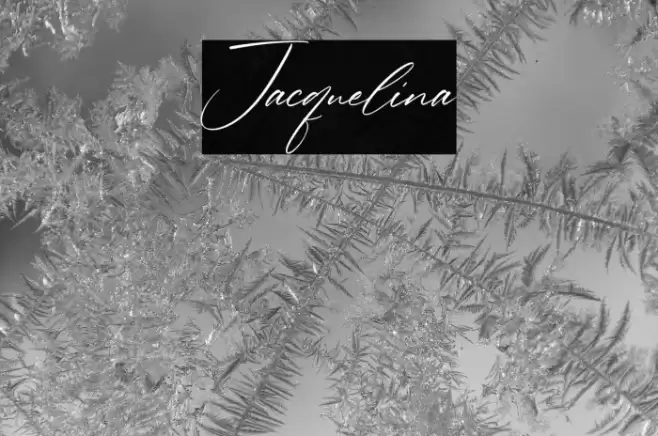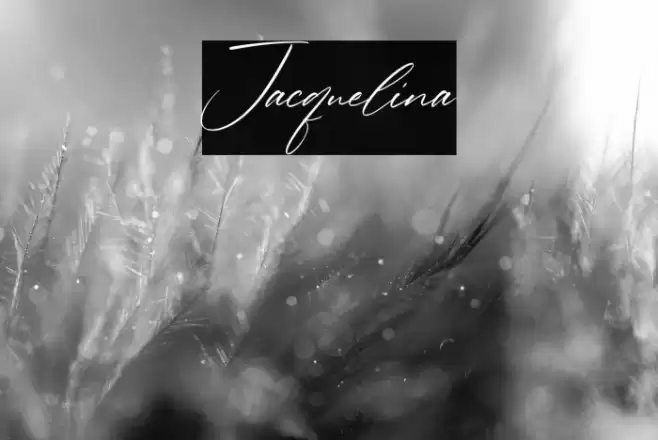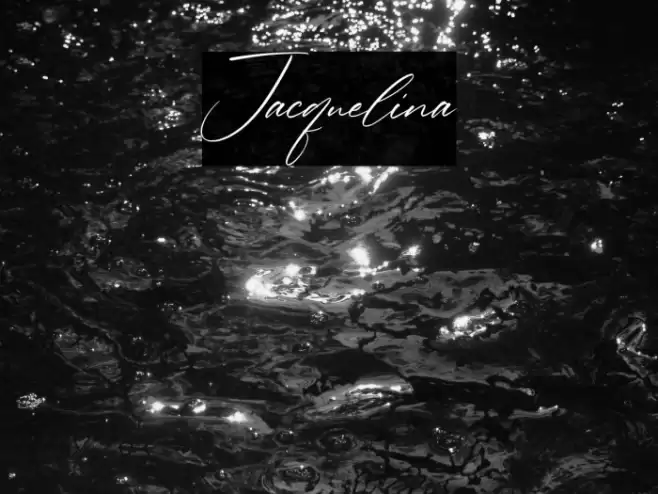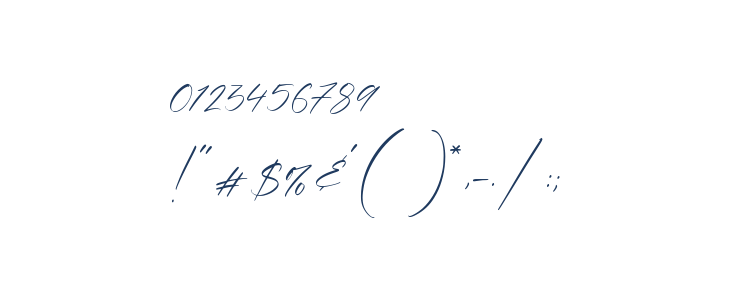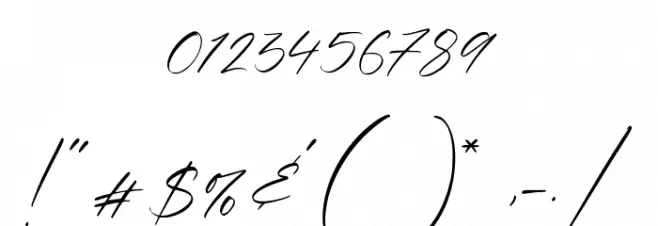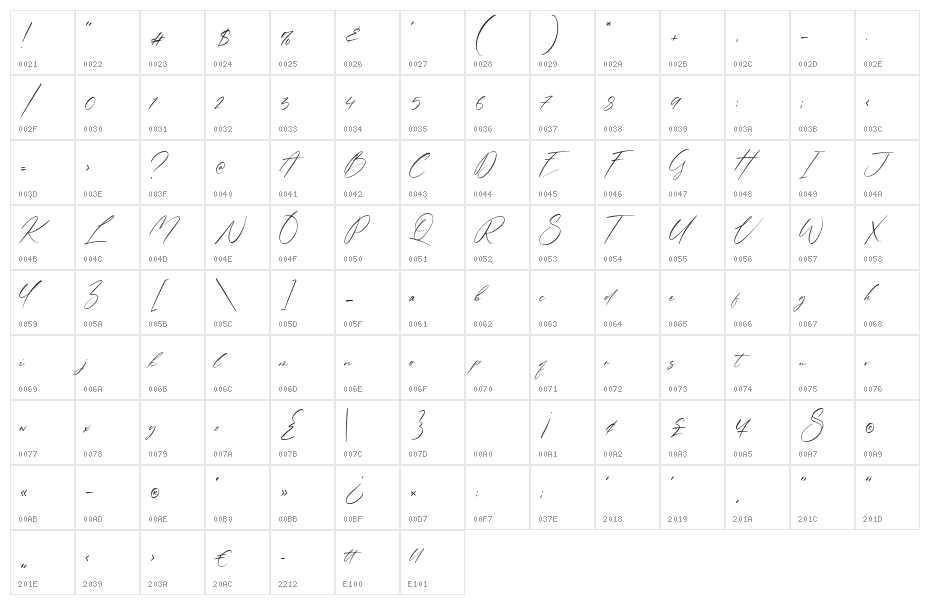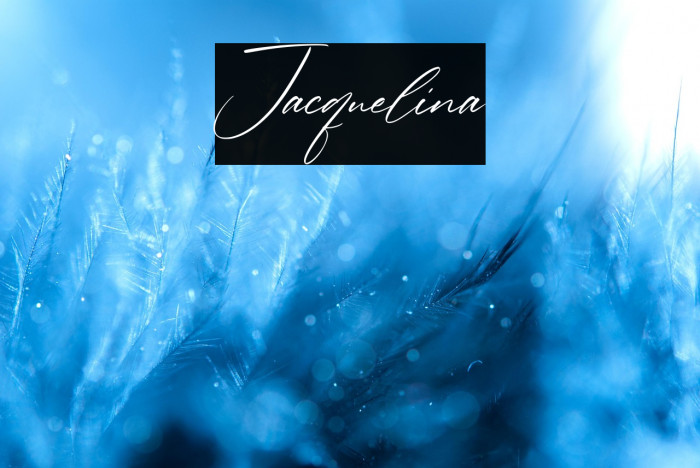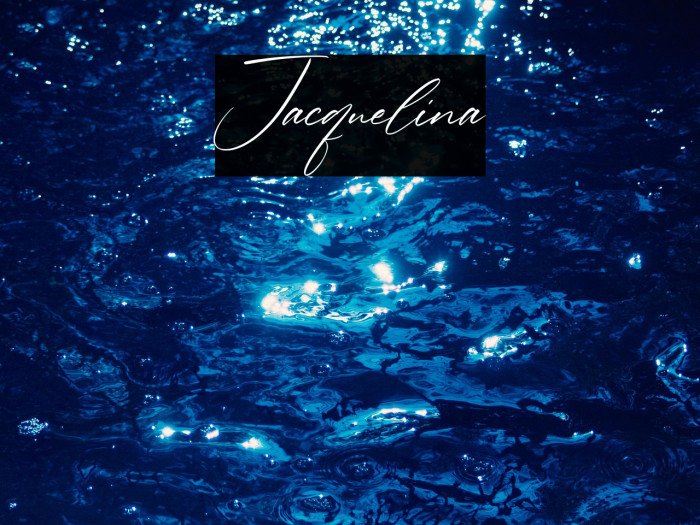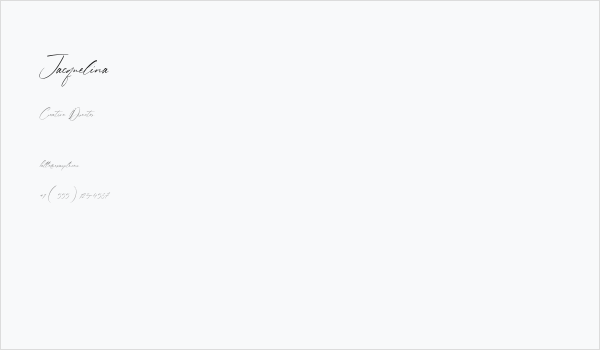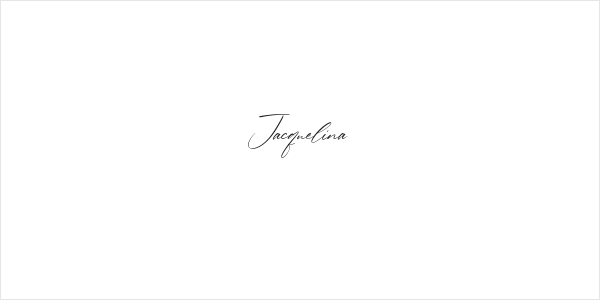
Jacquelina Font
Jacquelina Description
This elegant script font features a flowing, cursive style with a sophisticated and artistic flair. The characters are connected, creating a seamless and fluid appearance. The strokes are thin and delicate, with a slight variation in thickness that adds to the font's graceful and refined look. The uppercase letters are tall and slightly slanted, while the lowercase letters maintain a consistent flow, enhancing readability. The numerals and special characters complement the overall aesthetic, making it suitable for a variety of creative applications.
A graceful and flowing script font with elegant, connected characters from Uncategorized fonts.
- Proposed Projects: Ideal for wedding invitations, elegant branding, personal signatures, and artistic projects.
- Weight: Light
- Character Spacing: Tight
- Overall Style: Elegant
- Use Case: Logos, Invitations, Artistic projects